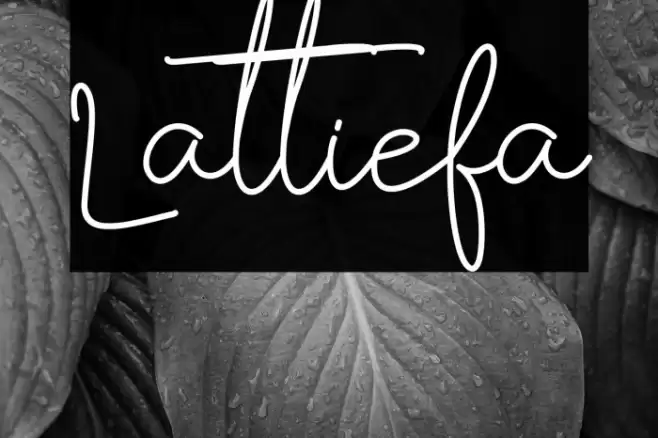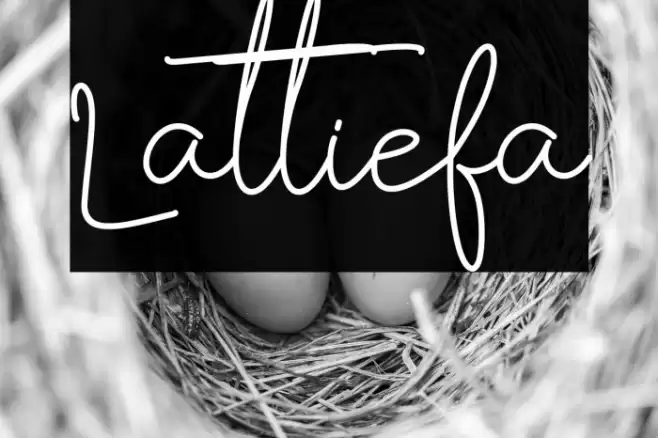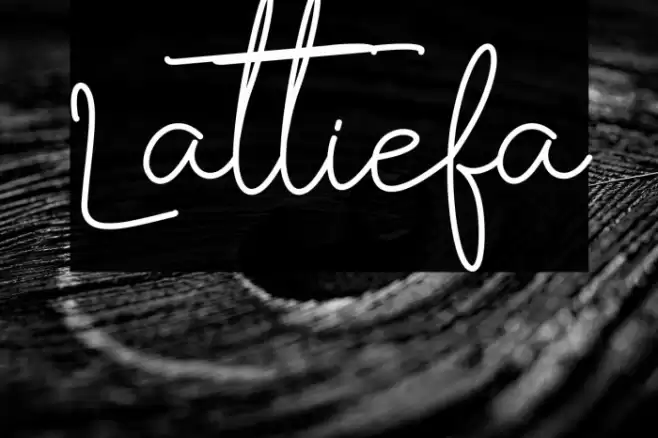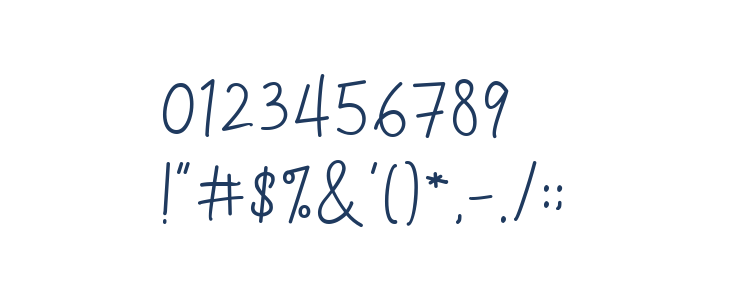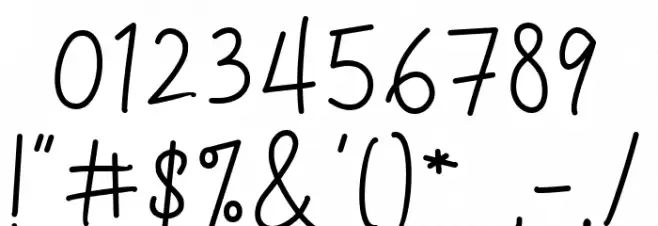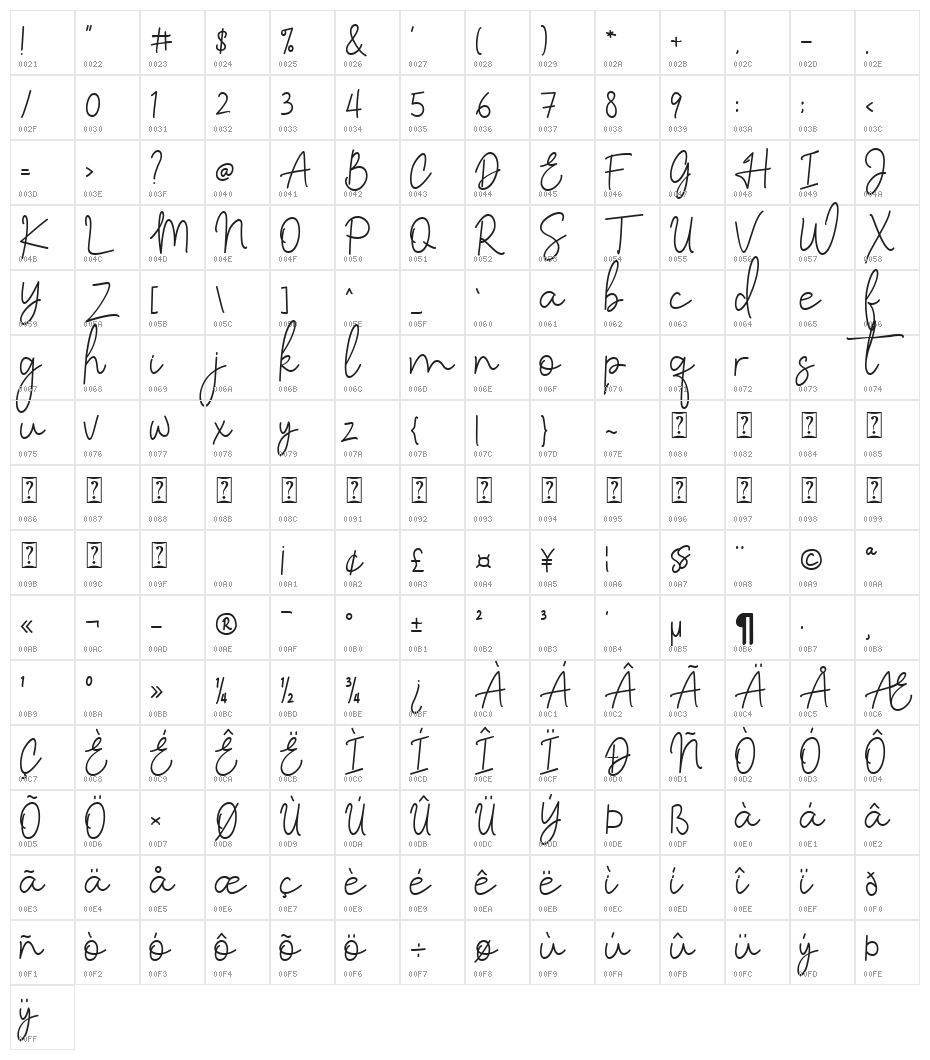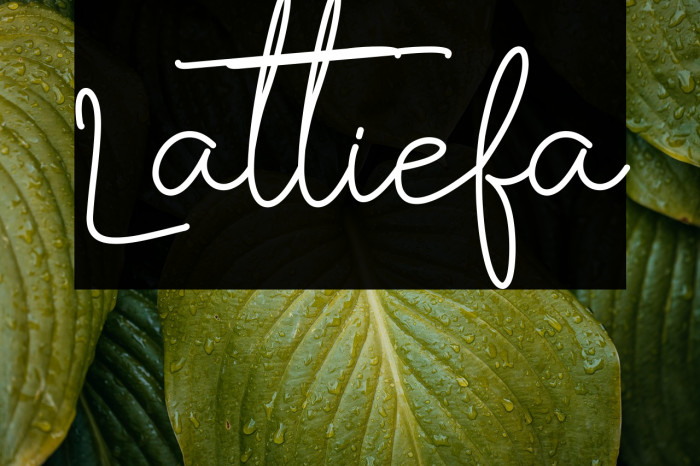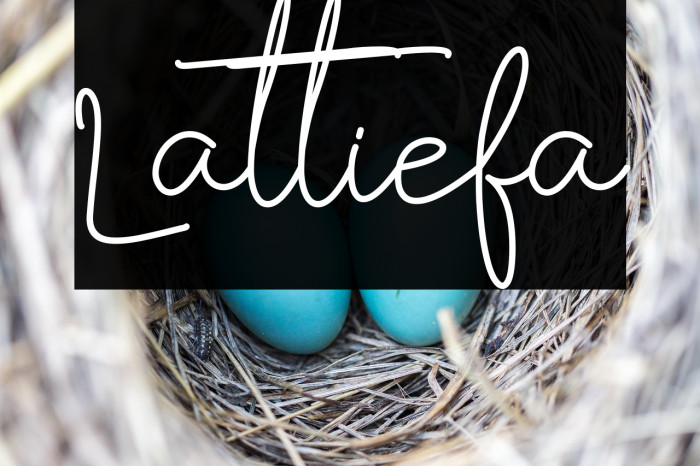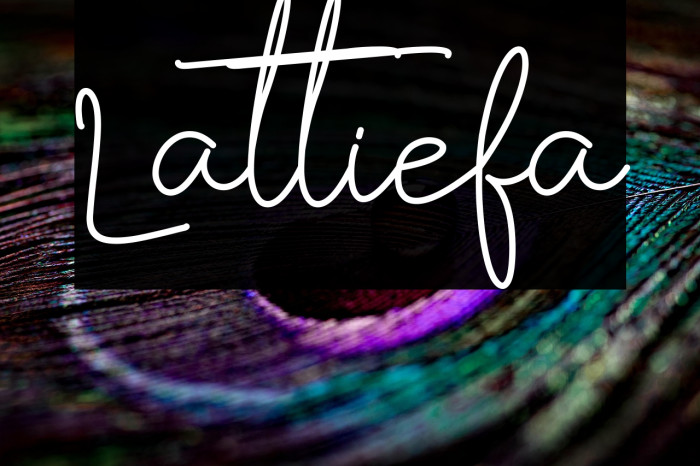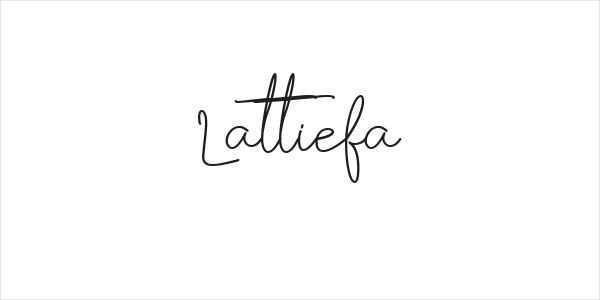
Lattiefa Font
Lattiefa Description
This font features a playful and casual handwritten style, characterized by its fluid and connected letterforms. The uppercase letters maintain a consistent height, while the lowercase letters exhibit a smooth and flowing baseline, creating a harmonious and approachable appearance. The numerals are clear and easy to read, complementing the overall informal aesthetic. Special characters are integrated seamlessly, maintaining the font's cohesive look. The strokes are moderately thick, providing good legibility without sacrificing the handwritten charm.
A playful and casual handwritten font with fluid, connected letterforms from Regular fonts.
- Font: Lattiefa
- Proposed Projects: Ideal for personal branding, invitations, greeting cards, and social media graphics where a friendly and informal tone is desired.
- Overall Style: Casual
- Use Case: Logos, Invitations, Social Media Graphics